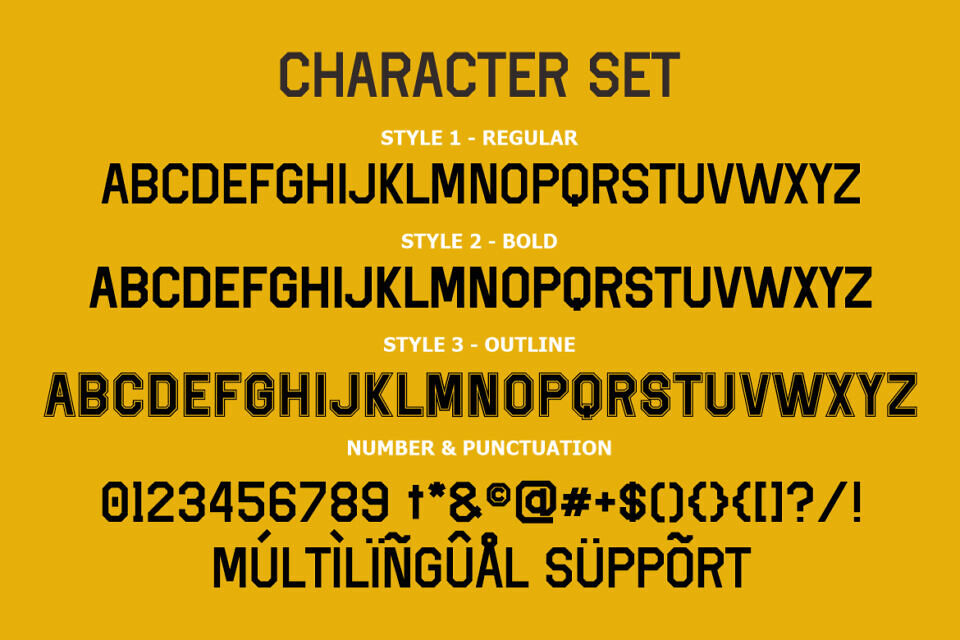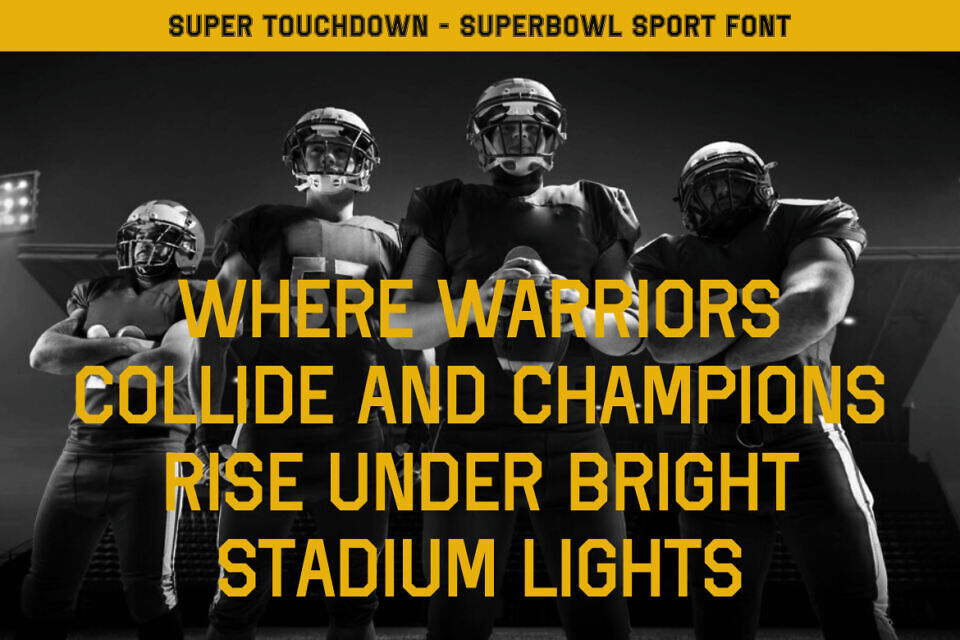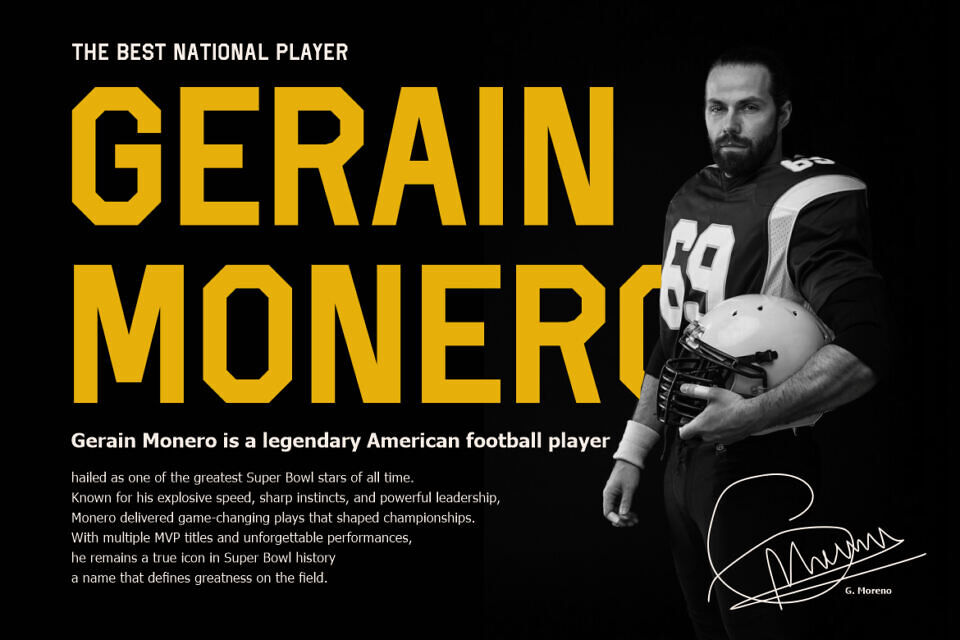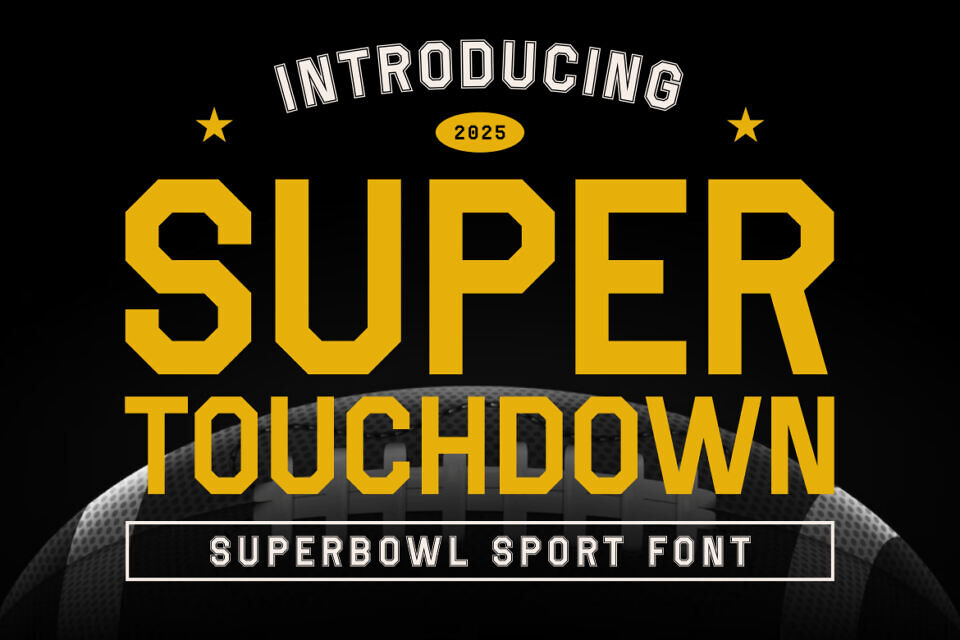
Super Touchdown Font
Super Touchdown is a dynamic digital font capturing the exhilarating spirit of American football and the Super Bowl. Its bold, geometric, and blocky characters embody strength and competitiveness.
Available in Regular, Bold, and Outline, this versatile typeface is highly legible and ideal for impactful displays and headlines. Perfect for branding, logos, promotional materials, and merchandise, it excels in sports event promotions, packaging, and film titles.
Super Touchdown offers a powerful, sporty, and vibrant aesthetic, designed to evoke excitement and a competitive edge, making it an ultimate asset for designers and businesses targeting football enthusiasts.